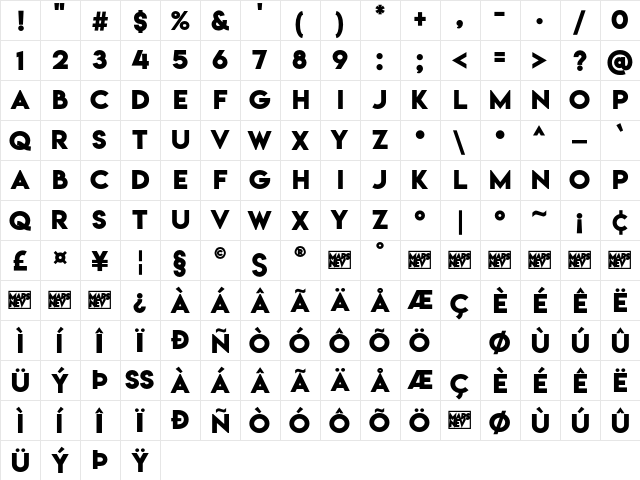
Lemon/Milk Bold
Design Context for Lemon/Milk Typeface
Lemon/Milk takes a measured approach to typography — its balanced proportions and neutral character make it a reliable workhorse for both digital and print work. The heavy weight commands attention and anchors typographic hierarchies.